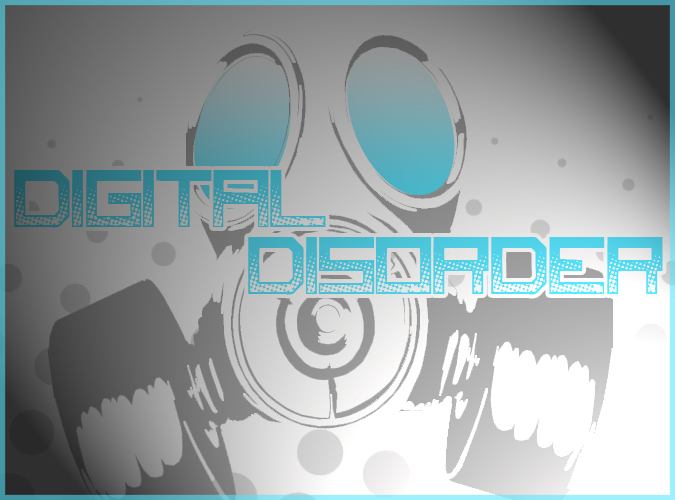
Digital Disorder by Font Monger is a free eroded techno display font with broad, squared letters and an unmistakable arcade-machine profile. Heavy rectangular strokes frame open interiors, and dense chips plus scattered pinholes collect along the lower portions as if the lettering has suffered a localized digital breakdown.
Its retro-futurist game styling suits arcade titles, electronic music posters, and tech-event graphics. The damaged lower edges can also become part of glitch-themed apparel and packaging, where the texture reads like corrupted data rather than ordinary wear. Within those markets, the broad geometry and concentrated decay can supply a recognizable brand identity.